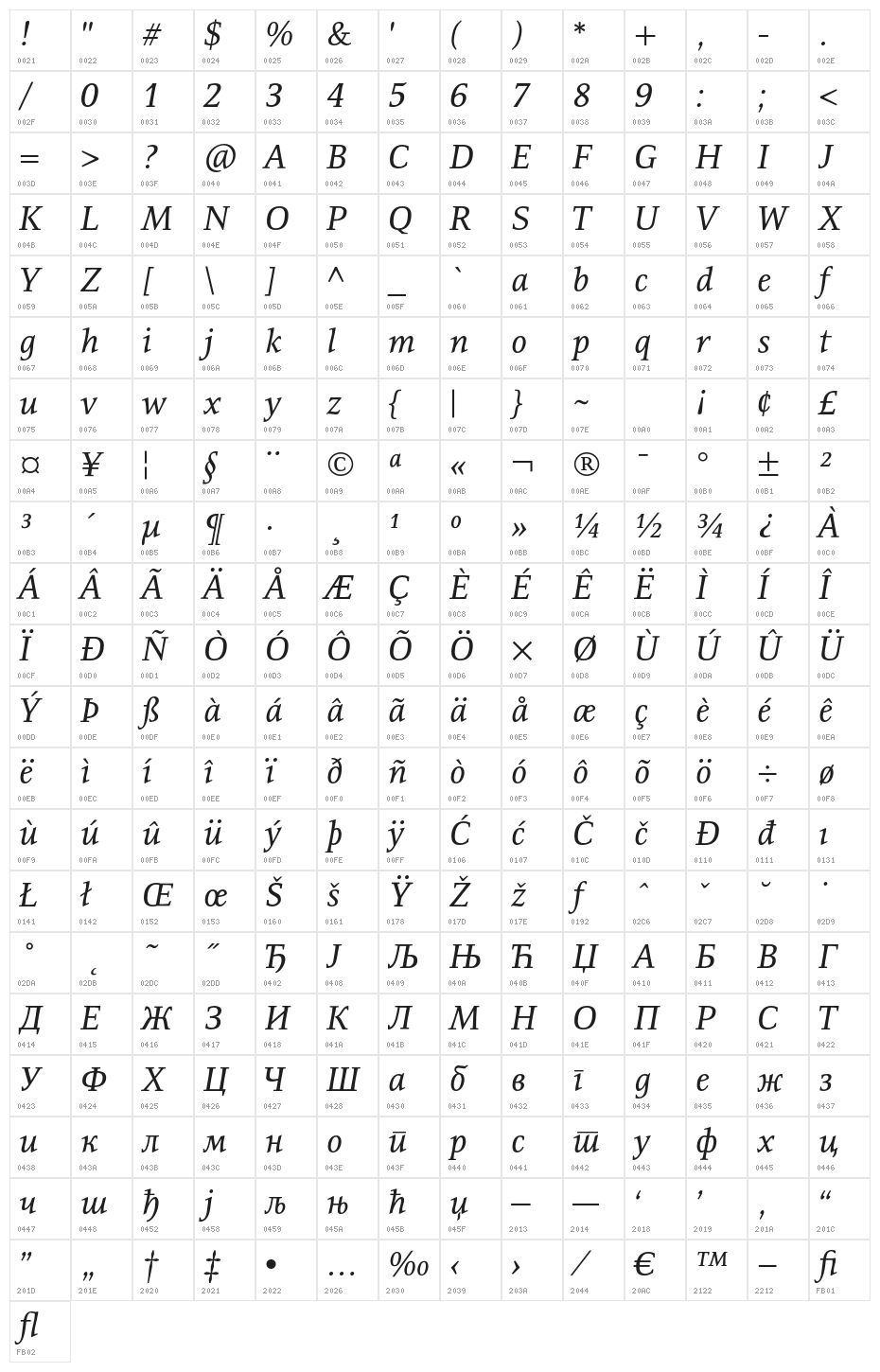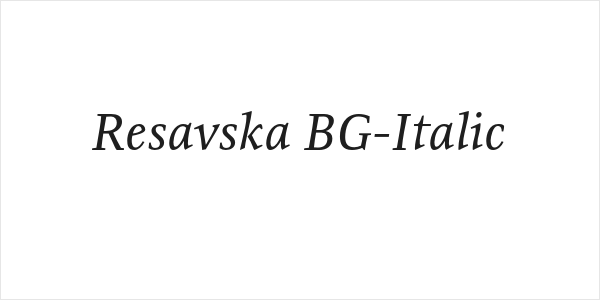
Resavska BG-Italic Font
Resavska BG-Italic Description
This font exhibits a classic and elegant style with a slight slant, characteristic of italic typefaces. The letters have a refined and sophisticated appearance, with smooth curves and a moderate contrast in stroke thickness. The uppercase letters are well-proportioned, while the lowercase letters maintain a consistent flow, enhancing readability. The numerals are clear and distinct, complementing the overall aesthetic. Special characters are crafted with attention to detail, ensuring they blend seamlessly with the rest of the typeface. This font is versatile, suitable for both formal and creative applications.
| Proposed Projects | Ideal for formal invitations, elegant branding, editorial design, and artistic projects. |